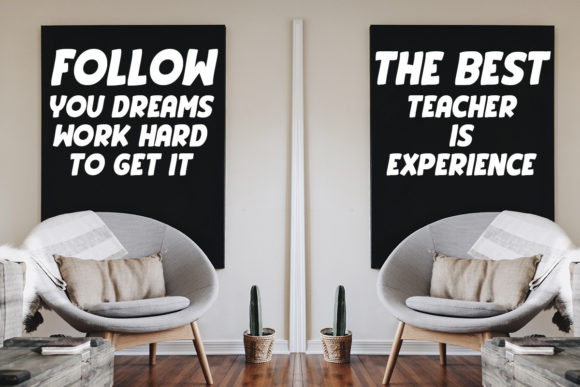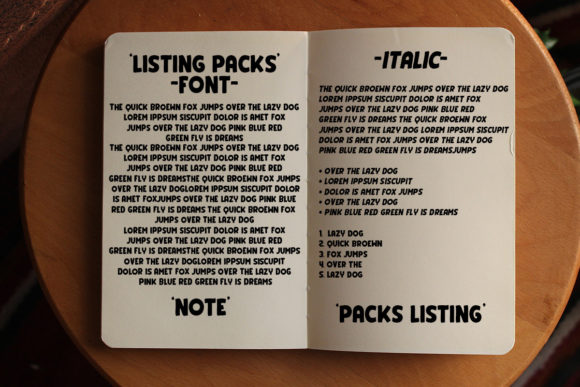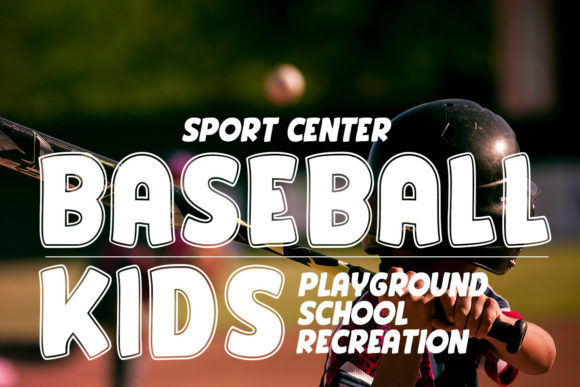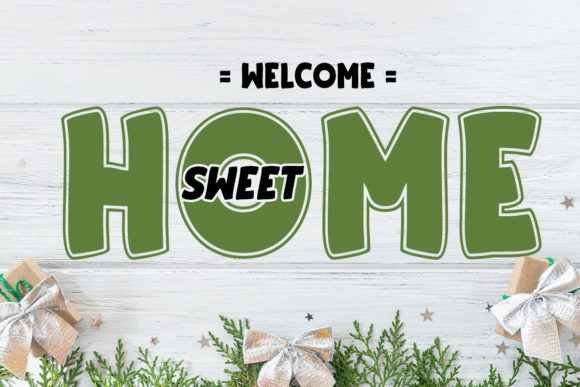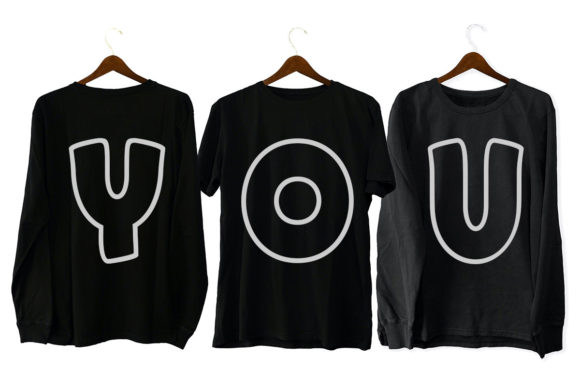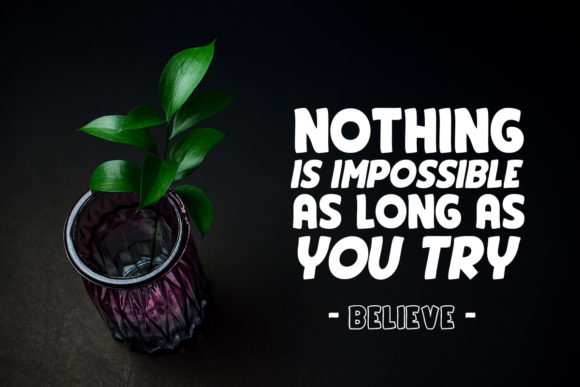
Introduction to Listing Packs Font
Have you ever found yourself staring at a blank design canvas, searching for the perfect font to bring your creative project to life? For designers, this moment is all too familiar. The right font can make or break a design, and that’s where the Listing Packs Font comes in – a high-quality, bold, and thick lettered display font that’s sure to add a fun and friendly touch to your next project.
Whether you’re working on a freelance project or collaborating with a team, the Listing Packs Font is an adaptable design resource that will look great on a variety of design ideas. With its free download option and transparent background, you can easily integrate this font into your design workflow without any hassle.
Key Features of Listing Packs Font
- High-quality typography designed for creative projects, available for free download.
- Comes with a transparent background, making it easy to use in various design scenarios.
- Features a clean and modern design, ideal for use in branding, advertising, and editorial projects.
- Includes a comprehensive set of characters, including uppercase and lowercase letters, numbers, and punctuation marks.
- Designed with a high resolution (300 DPI) for crisp and clear typography in various print and digital applications.
- Perfect as a design resource for graphic designers, UI/UX designers, and digital artists looking for a versatile and stylish font.
Honest Review: Listing Packs Font
As a designer, I’m always on the lookout for high-quality design resources that can elevate my creative project. Recently, I stumbled upon the Listing Packs Font, and I’m excited to share my honest review.
- ✨ The font is incredibly versatile and can be used for a wide range of design projects, from modern websites to traditional print materials.
- ✨ The font files come with transparent backgrounds, which makes it easy to integrate into any design project.
- ⚠️ The font may not be suitable for very large or complex projects, as it can become difficult to manage and edit.
Overall, I’m impressed with the Listing Packs Font. It’s a great addition to any designer’s toolkit, and its free download option makes it an excellent choice for designers of all levels. While it may have some limitations, the font’s versatility and high quality make it a valuable design resource.
Listing Packs Font
The Listing Packs Font is a high-quality design resource ideal for creative projects. It’s available for free download and features a transparent background, making it perfect for various design applications.
Tips for Getting the Most Out of Listing Packs Font
To get the most out of Listing Packs Font, experiment with different font sizes, colors, and combinations to create unique and eye-catching designs.
Common Use Cases for Listing Packs Font
The Listing Packs Font is ideal for use in a wide range of creative projects, including social media graphics, presentations, infographics, and more.